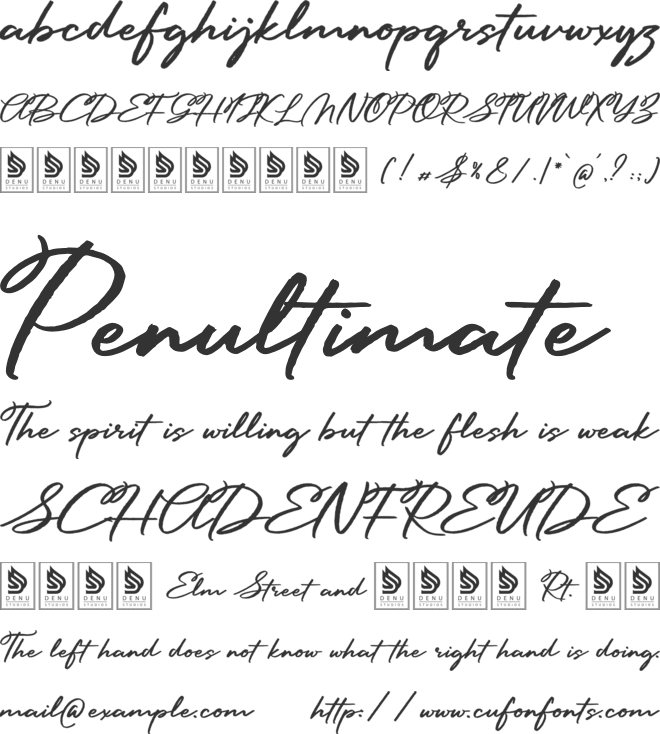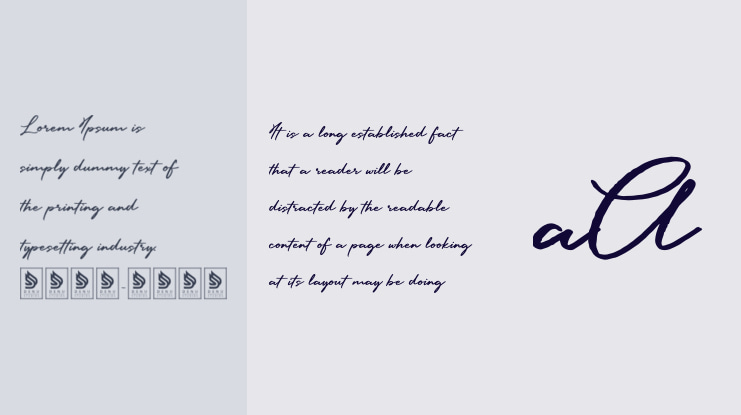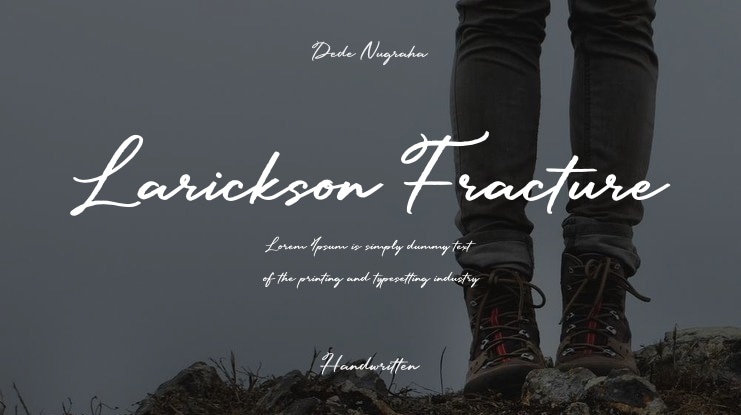
Larickson Fracture | Script Handwritten product packaging, mugs, quotes, posters, shopping bags, t-shirts, book covers, name card, invitation cards, greeting cards, label, photography, watermark, special events, and all your other lovely projects that need a Script Handwritten taste.